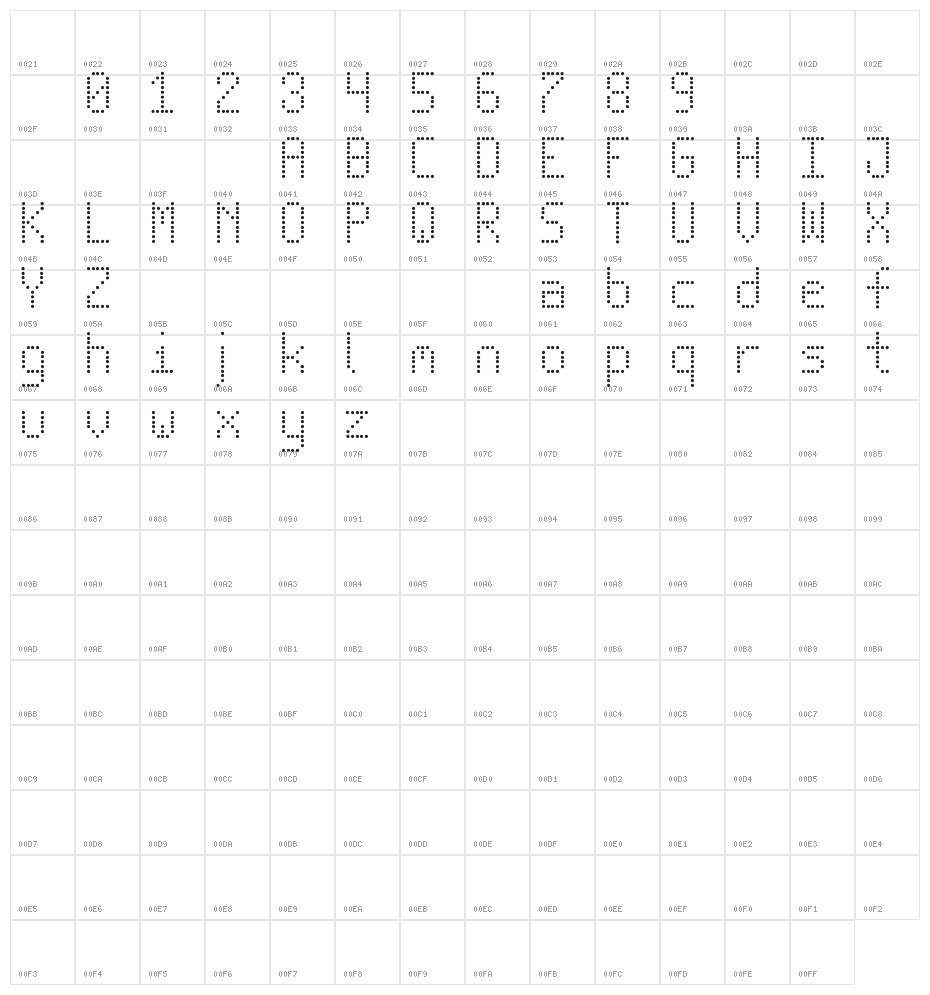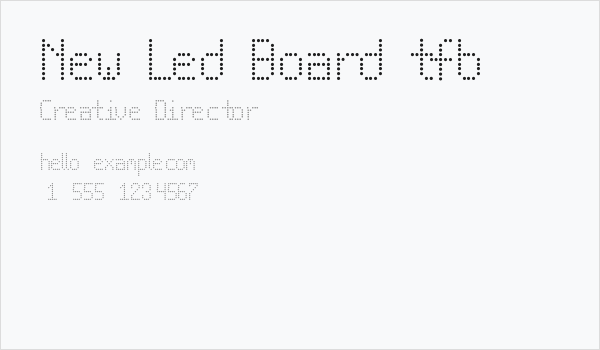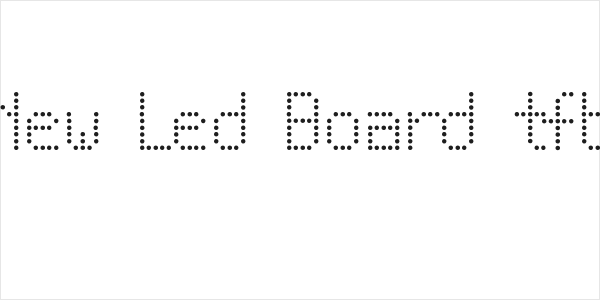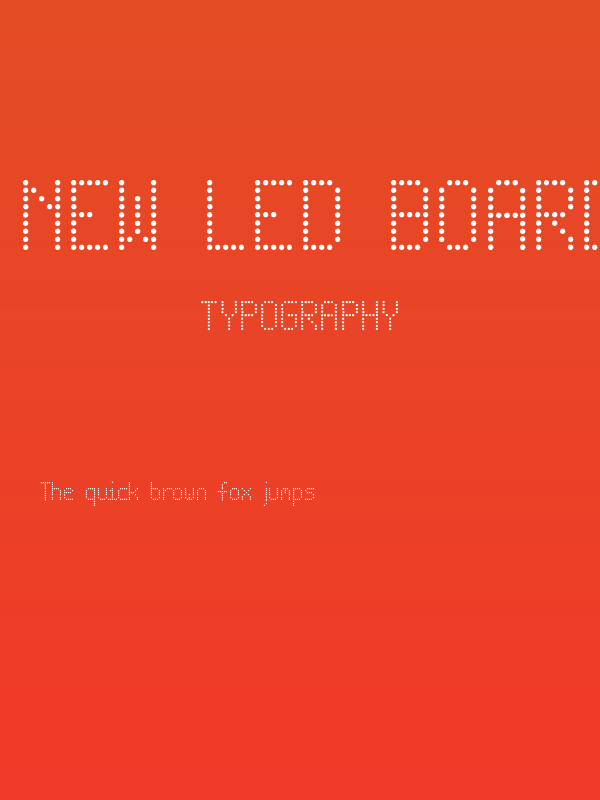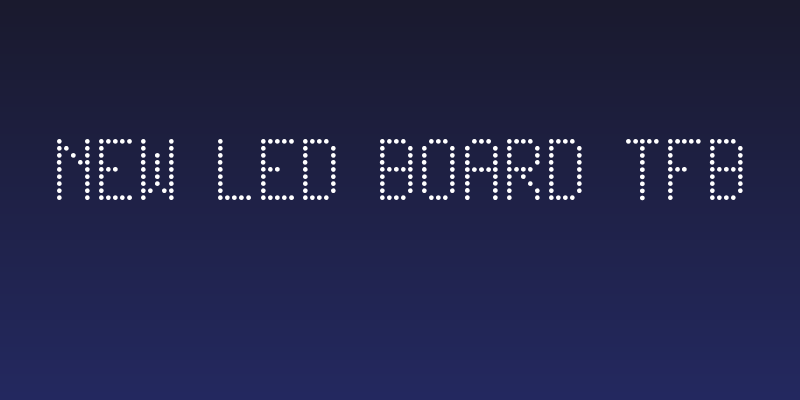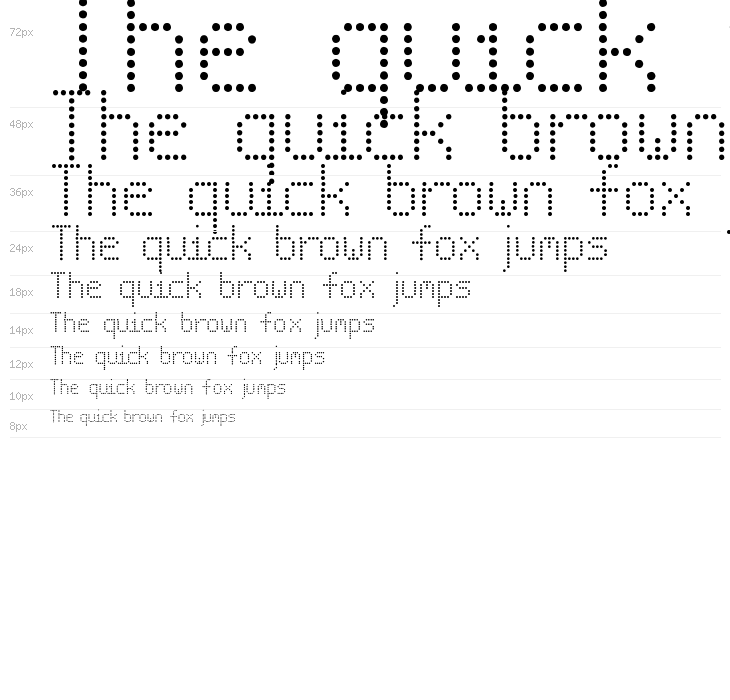
New Led Board tfb Font
New Led Board tfb Description
This font features a distinctive dot matrix style, reminiscent of LED displays. Each character is composed of evenly spaced dots, creating a digital and modern appearance. The uppercase and lowercase letters maintain a consistent structure, with rounded edges formed by the dots. Numbers and special characters follow the same pattern, ensuring uniformity across all glyphs. The design is clean and minimalistic, making it suitable for digital displays and signage. The spacing between the dots is consistent, providing a clear and legible text even from a distance.
| Use Case | Headlines, Logos, Digital Displays |
| Proposed Projects | Ideal for digital displays, electronic signage, tech-themed designs, and modern branding. |